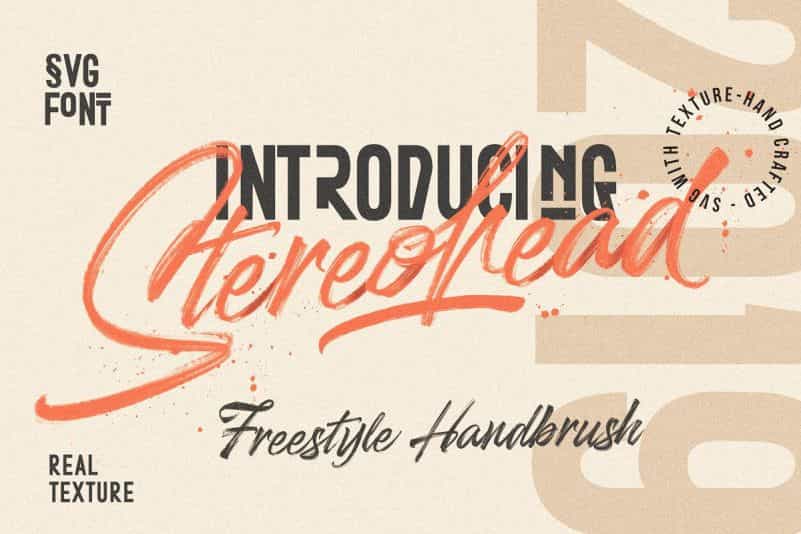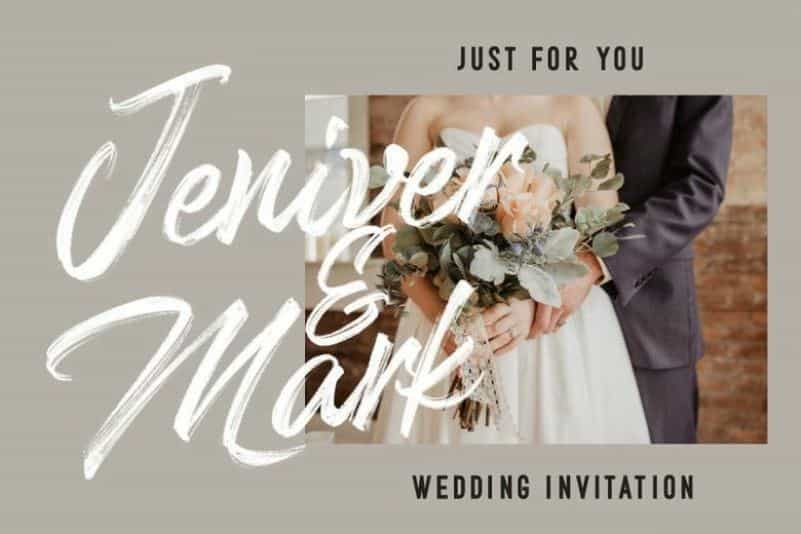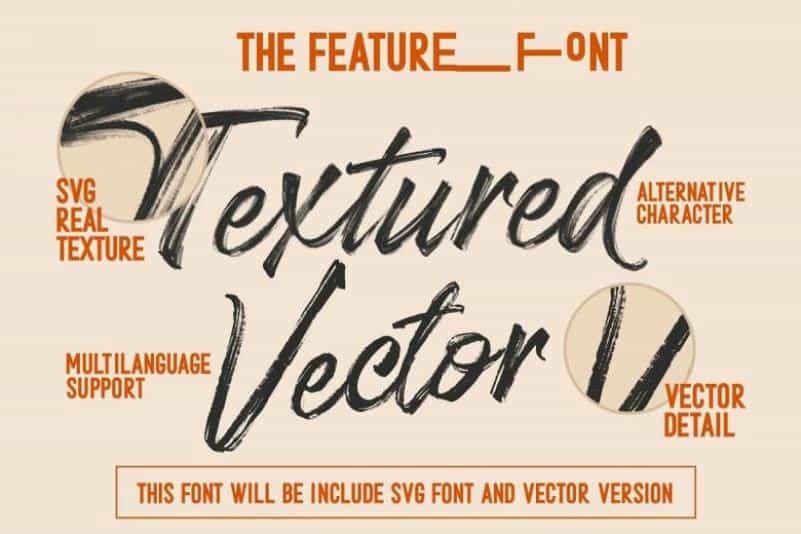
Introducing Stereohead font. A Nice Font Family, SVG opentype with EXTRAS. On the contrary, this font is handwritten script with dry brush and signature style. Appropriate for design, logo, and awesome work among others. Stereohead was designed and shared by Dirtyline Studio.